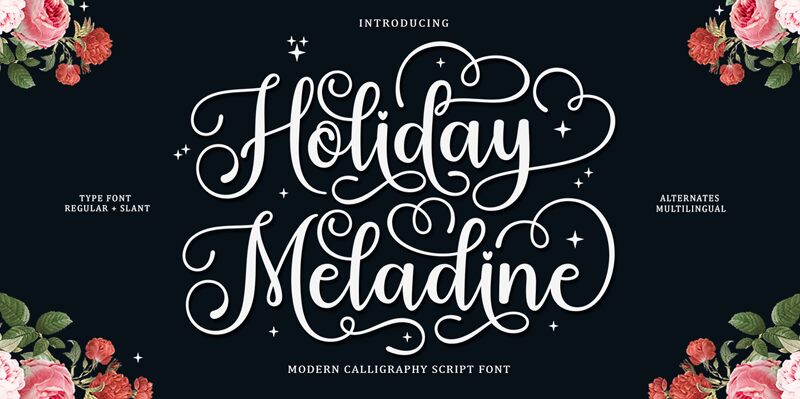
Holiday Meladine font is a cursive script typeface filled with elegance. Created by Muhammad Nazar, the letters are highly ornate and sophisticated, especially with the implementation of decorative swashes. Being a calligraphy work, it features high contrast letters which can mainly be noticed in their thick stems and thin strokes. The formal mood set when using such alphabet is exceptional especially given the flowing smooth curves.
Features: Early & Late Swash & Ligatures
Holiday Meladine